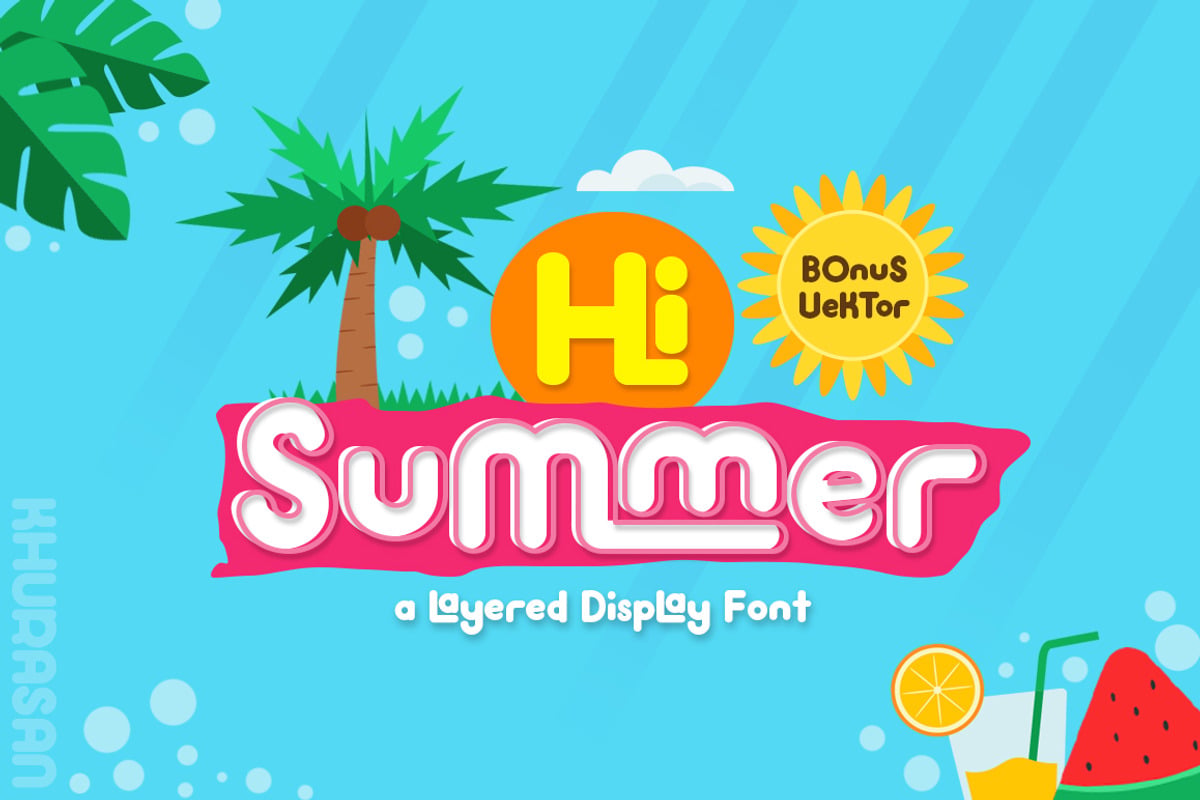
Hi Summer Layered Font
Brighten your designs with Hi Summer font - a cheerful layered typeface perfect for fun, tropical projects! This delightful decorative font features two distinct styles that work beautifully together using a layers method: regular and outline versions that create stunning dimensional effects. Hi Summer font brings a playful, vacation-ready vibe that's perfect for: Logo design and branding projects Greeting cards and invitations Posters and promotional materials Any design that needs a cheerful s...